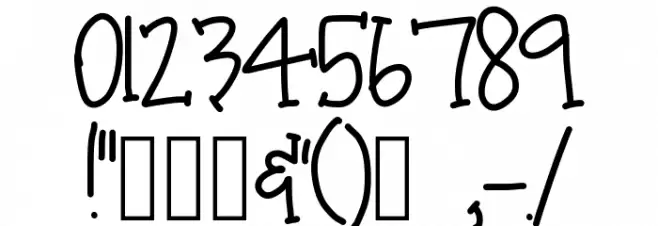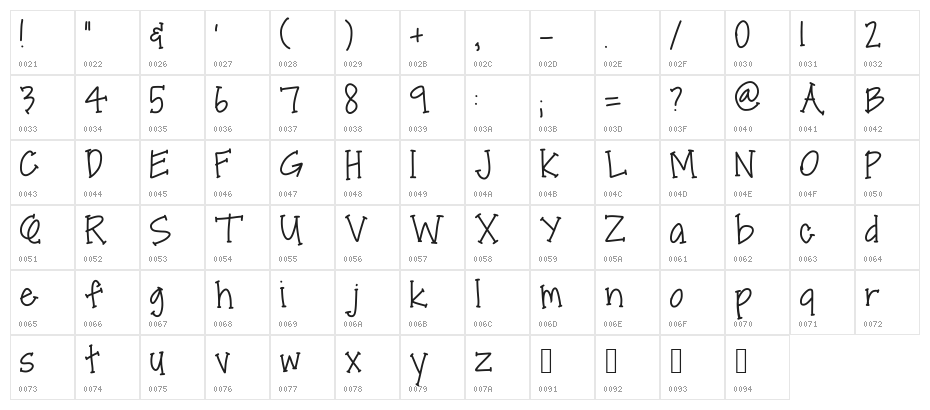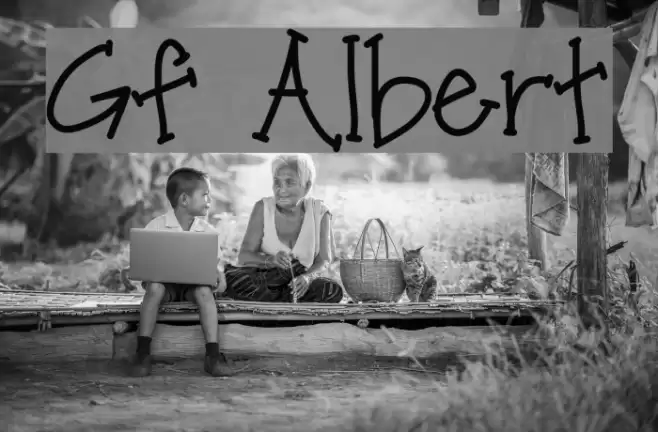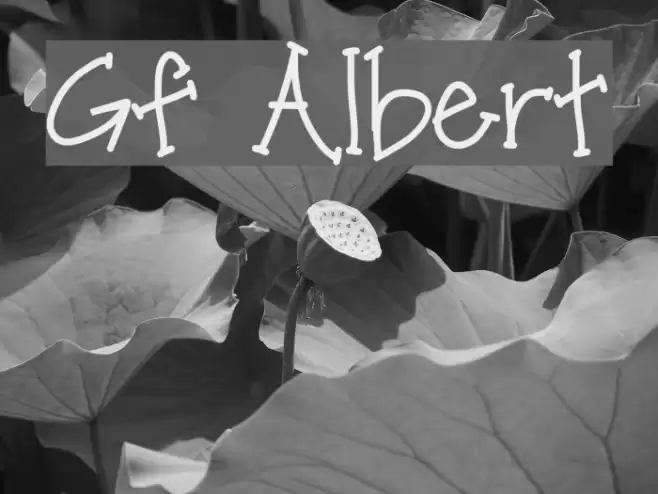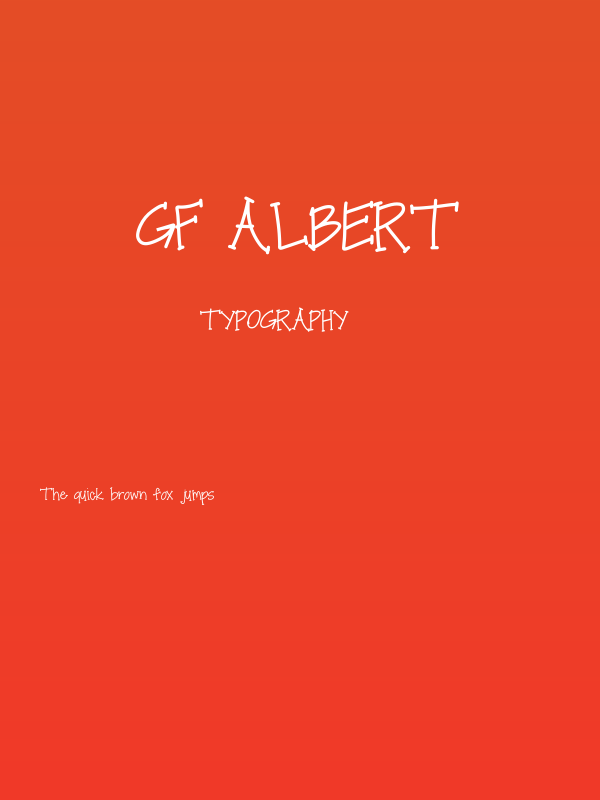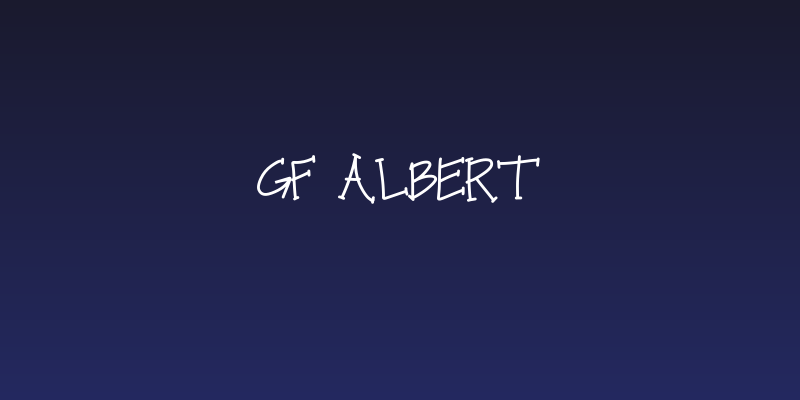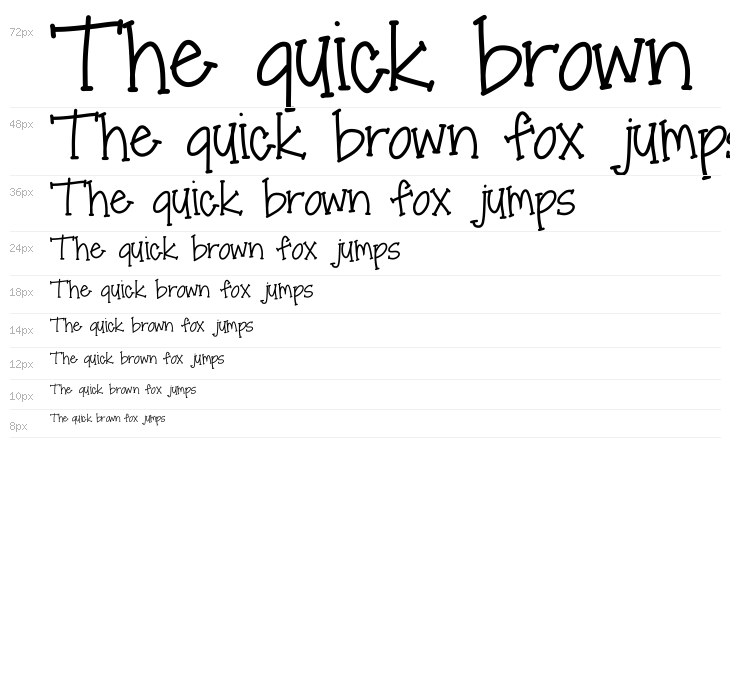
Gf Albert Font
Gf Albert Description
This playful and whimsical font features a handwritten style with irregular, slightly tilted characters that give it a casual and friendly appearance. The strokes are uneven, adding to its informal charm, while maintaining legibility. The uppercase letters are bold and slightly larger than the lowercase, which are more rounded and softer in appearance. Numbers and special characters follow the same playful style, making this font suitable for creative and informal projects.
| Proposed Projects | Ideal for children's books, greeting cards, playful branding, and casual invitations. |